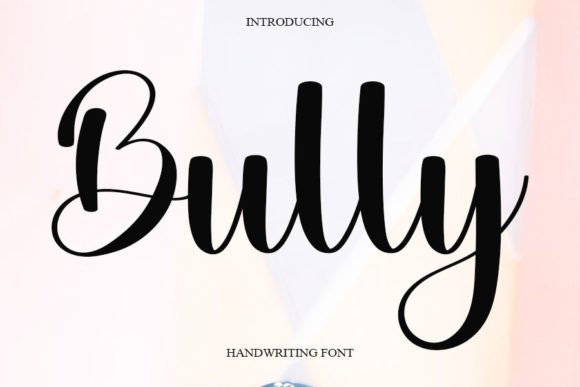
The Bully Font: A Simple yet Powerful Handwritten Font for Your Creative Projects
I’ll never forget the time I was working on a greeting card design project, and I just couldn’t seem to find the right font. My client wanted something simple, yet elegant; something that would convey a sense of warmth and friendliness. After hours of scouring through font libraries and searching online, I stumbled upon the Bully font. And let me tell you, it was love at first sight! 💕
The Bully font is a simple handwritten font that has a wide spectrum of applications, ranging from greeting cards to headlines. Its versatility and natural feel make it an excellent choice for designers, crafters, and creative hobbyists looking to add a personal touch to their projects.
An Honest Review of the Bully Font
What I Love About Bully Font
• ✨ Simple and elegant design that works well for both digital and print projects
• 💬 Versatile and can be used for a wide range of projects, from greeting cards to headlines
• 🎨 Works well with a variety of design styles, from minimalist to playful
While the Bully font is an excellent choice for many projects, there are a few quirks to be aware of:
• 🤔 Limited character set: The Bully font may not have as many characters as some other fonts, which can limit its use for certain projects.
• ⚠️ Not suitable for body text: While the Bully font is highly legible, it’s not designed for long blocks of text. It’s best used for headlines, titles, or short paragraphs.
The Designer Inspiration Behind Bully Font
The Bully font was designed with the intention of creating a simple, yet elegant handwritten font that could be used for a wide range of projects. The designer wanted to create a font that was both highly legible and visually appealing, with a natural feel that would add a personal touch to any project.
Font Name Bully Font
Author Ganden Letter
Q: What is the Bully font best used for?
A: The Bully font is best used for projects that require a simple, yet elegant handwritten font, such as greeting cards, headlines, and titles.
Q: Is the Bully font suitable for body text?
A: No, the Bully font is not designed for long blocks of text. It’s best used for headlines, titles, or short paragraphs.